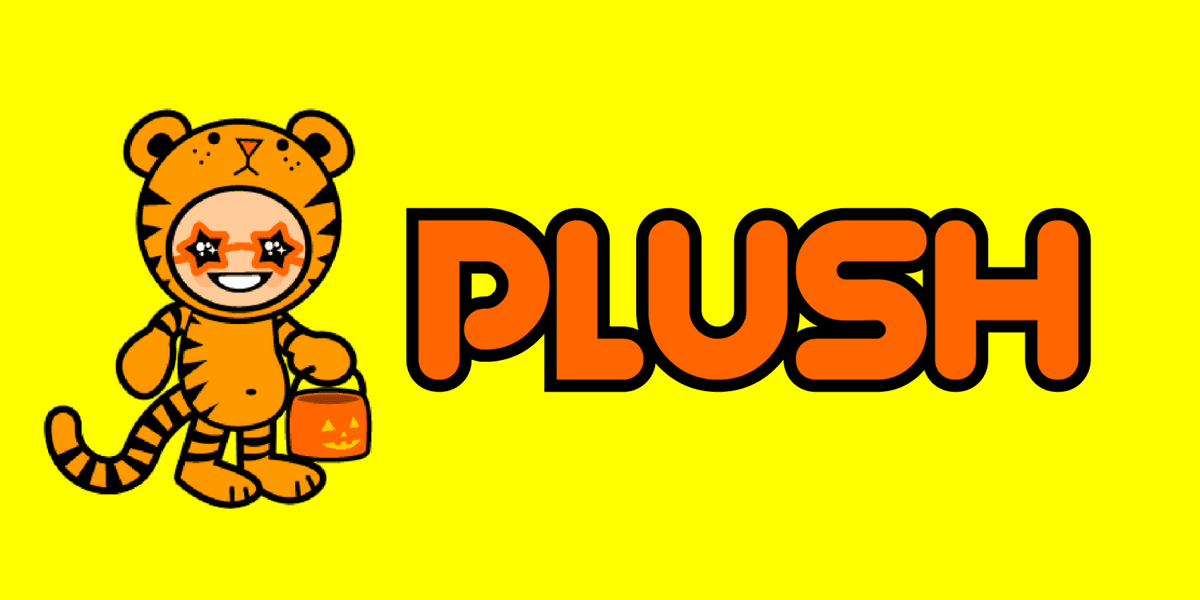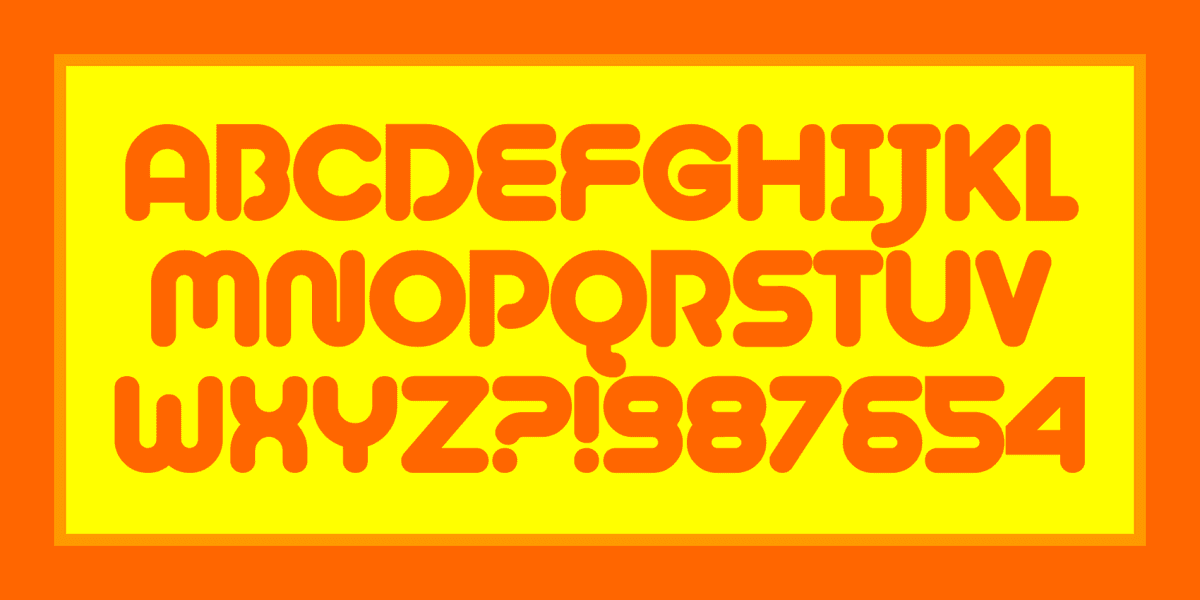
If I could, I would give fonts to trick or treaters instead of candy... in my opinion, a way better present. I also have no idea why I named this font Plush. I think maybe because I was drawing a kid in a tiger costume and subliminally I guess I was thinking, "Tiger fur is plushy." It contains all letters, numbers, punctuation, and absolutely no razor blades.